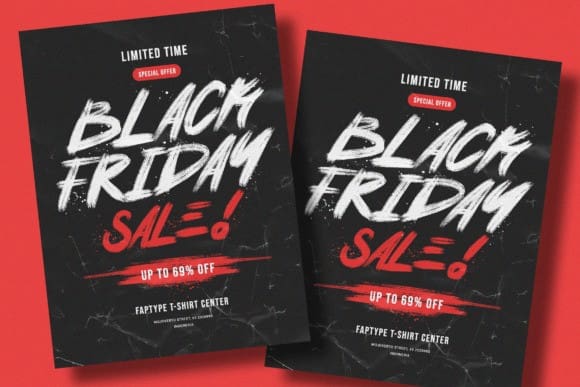
Blackboard Brush Font
Blackboard Brush Font a bold and dynamic heavy brush handwriting font designed to make a powerful statement. With its striking strokes and authentic hand-drawn texture, Blackboard captures the raw energy of traditional brush lettering, offering a versatile choice for your most creative projects.
Perfect for headlines, branding, packaging, and social media graphics, Blackboard exudes personality and adds an expressive touch to any design. Whether you’re looking to create a commanding logo or eye-catching promotional material, this font’s unique style ensures your message will stand out with confidence and clarity.
Experience the perfect blend of boldness and artistry with Blackboard Brush —where every stroke speaks louder.